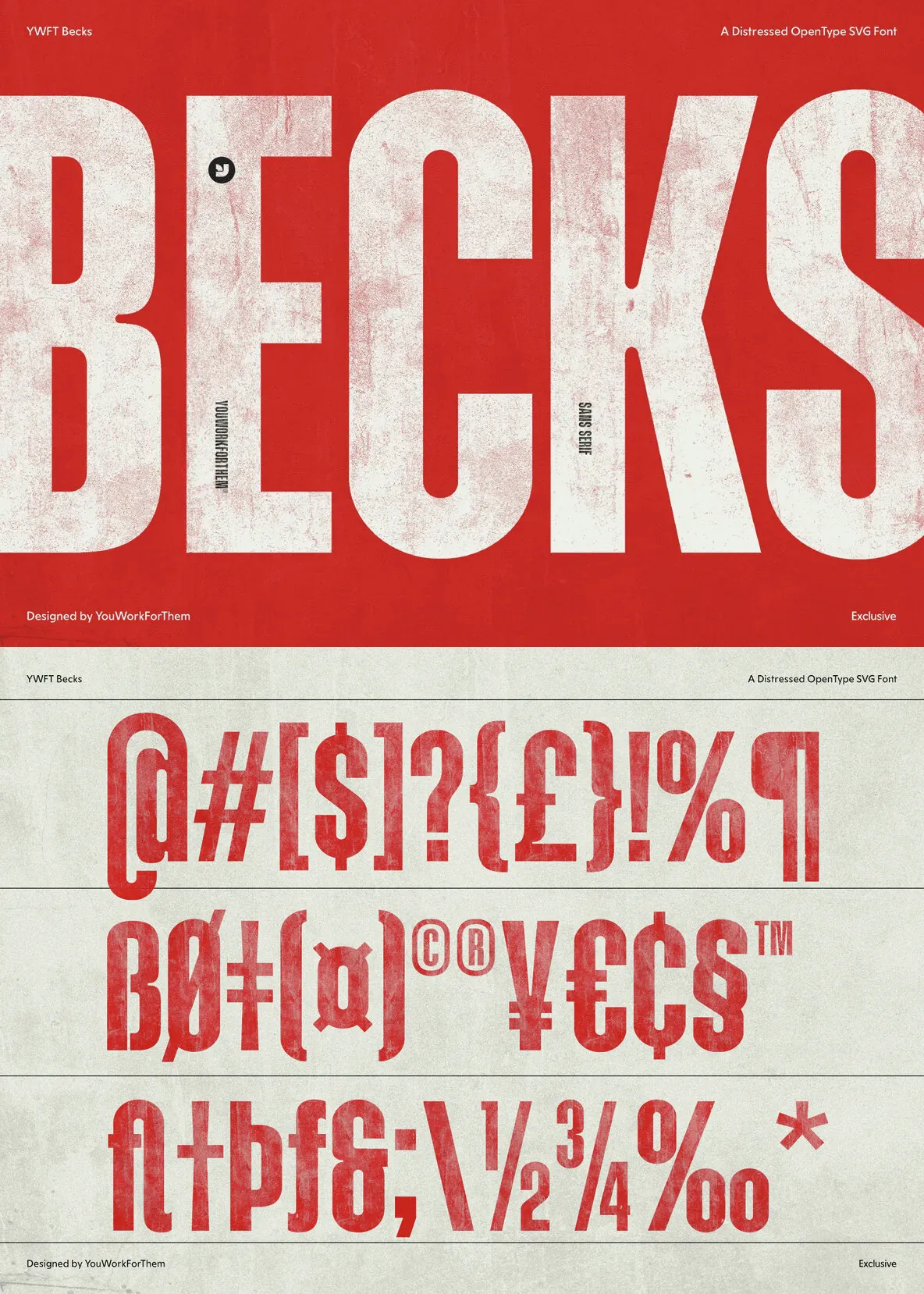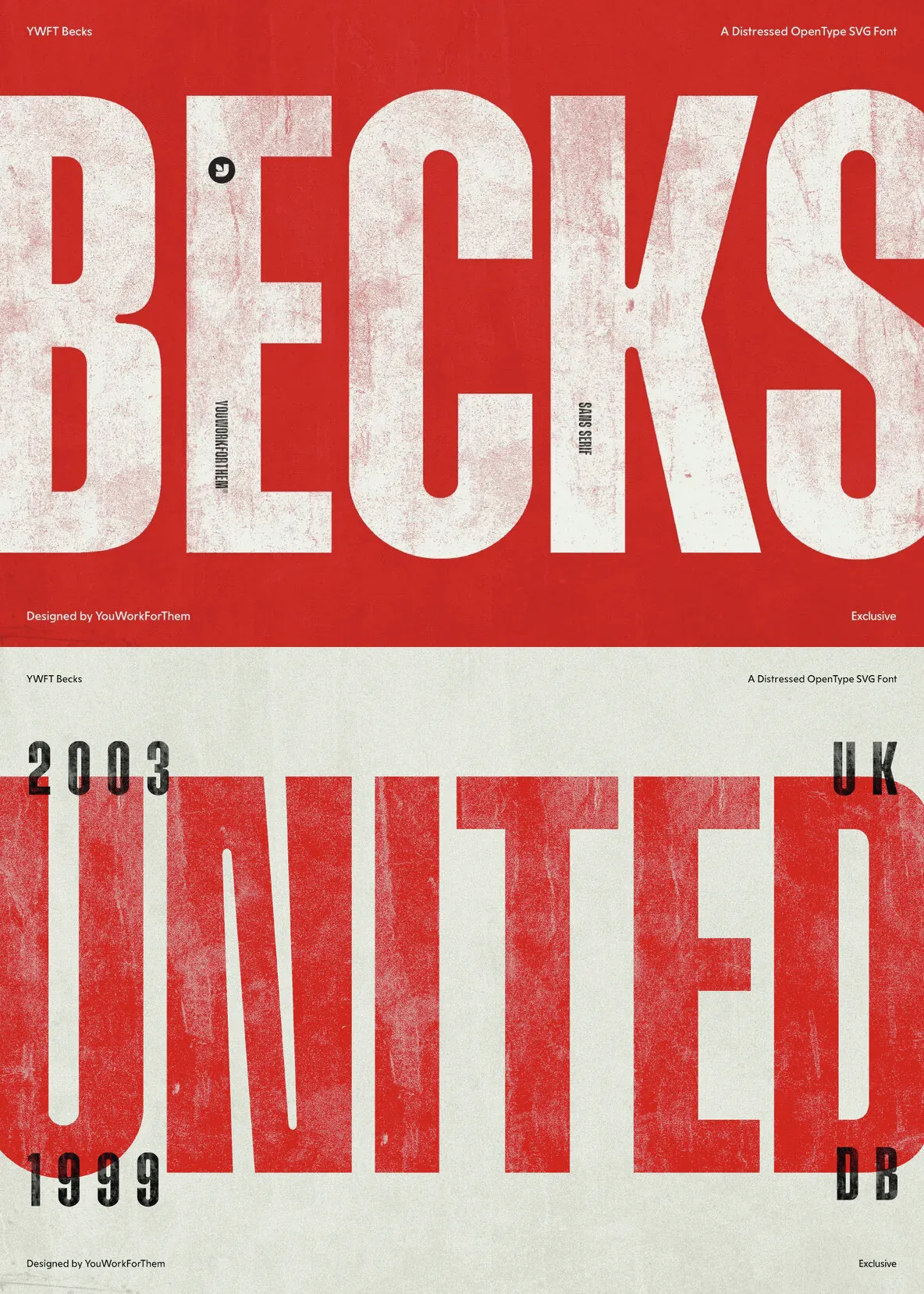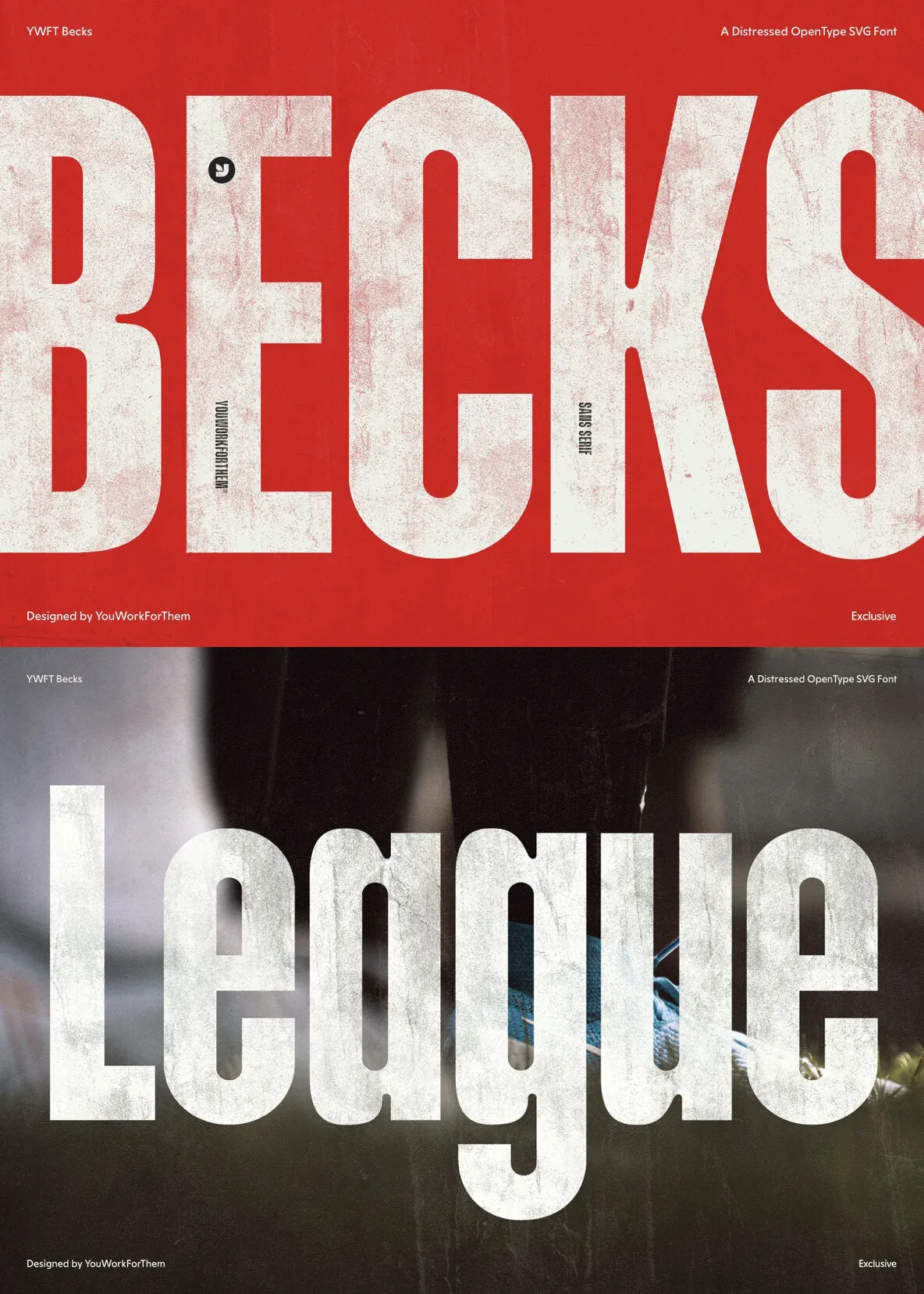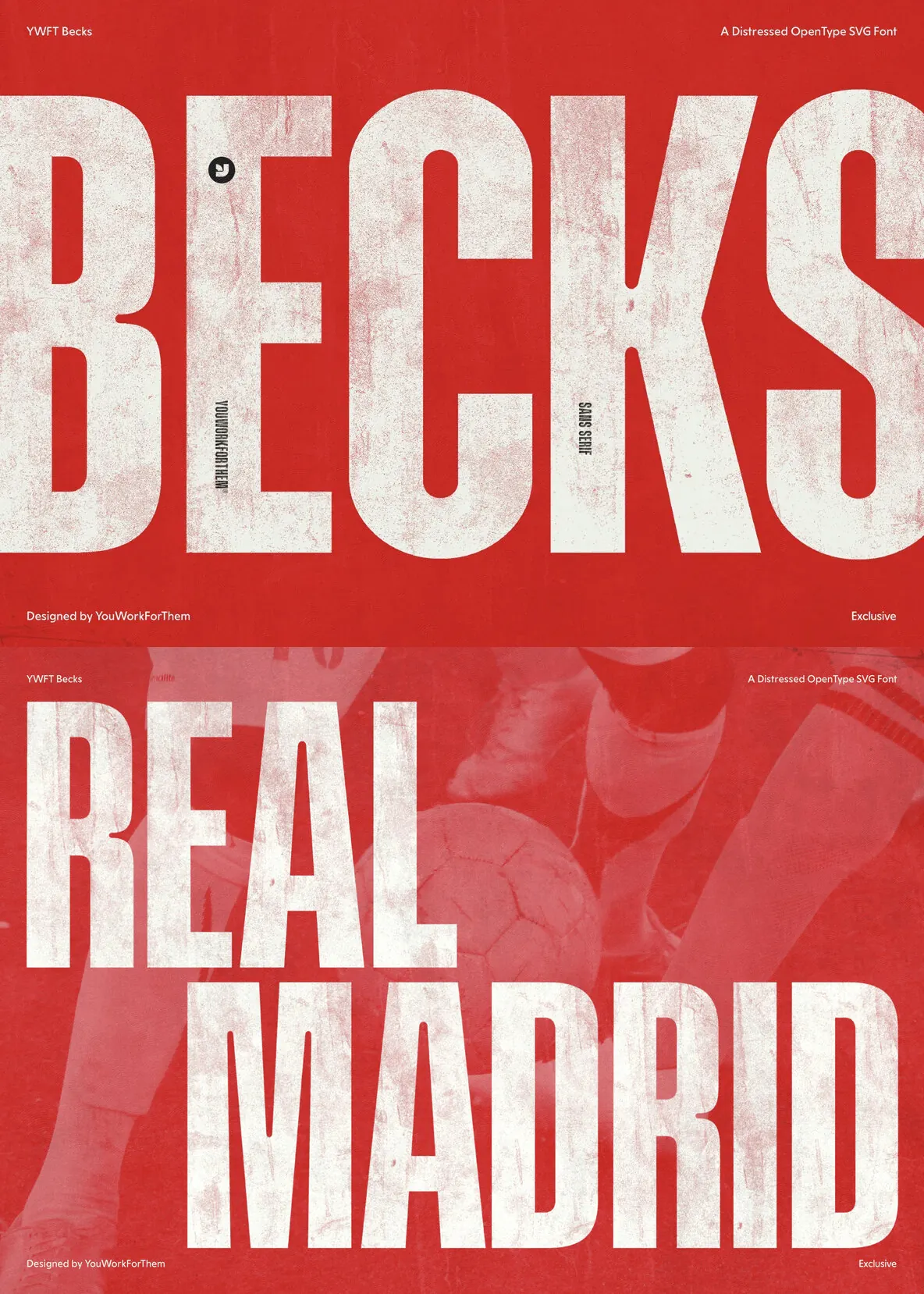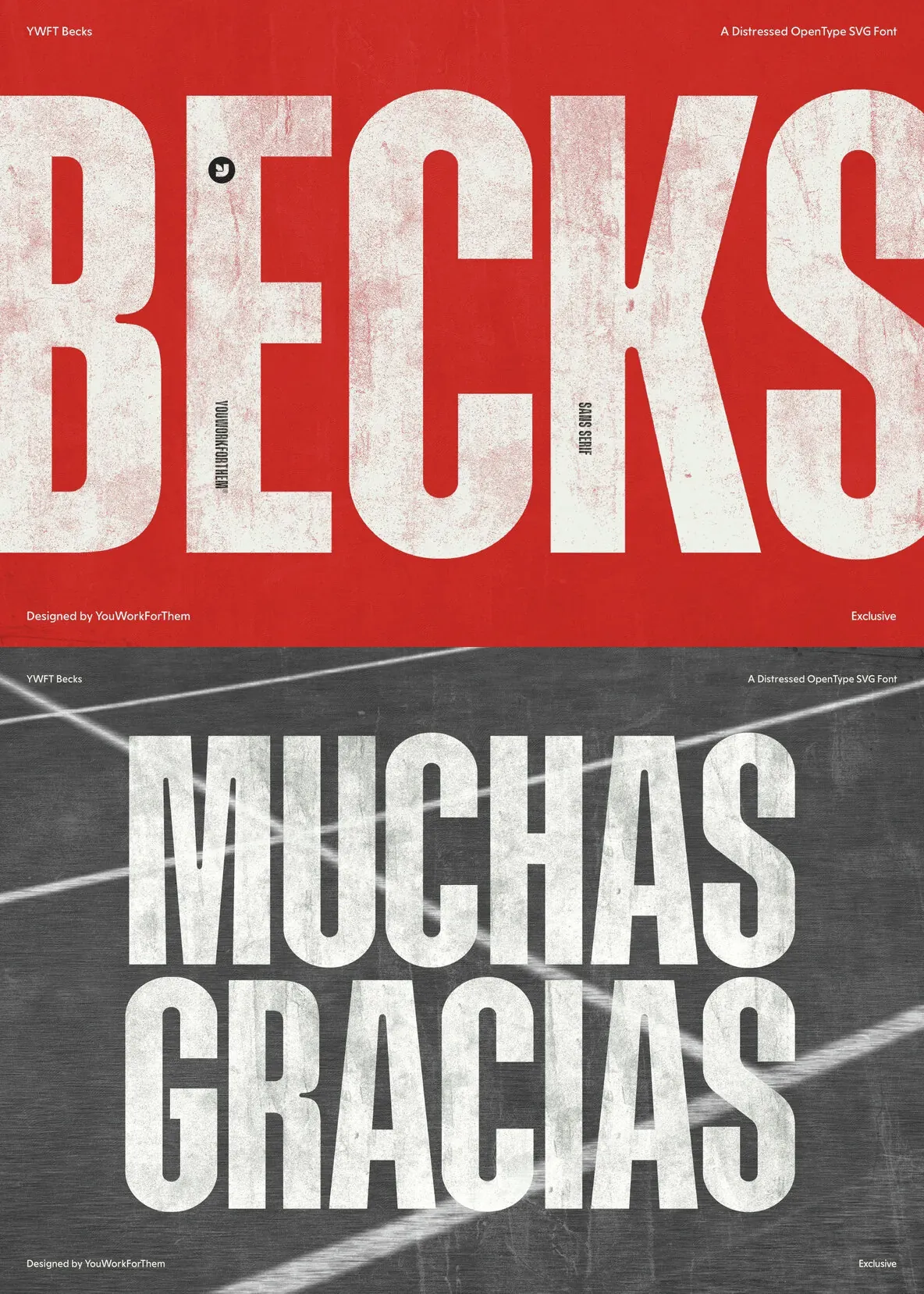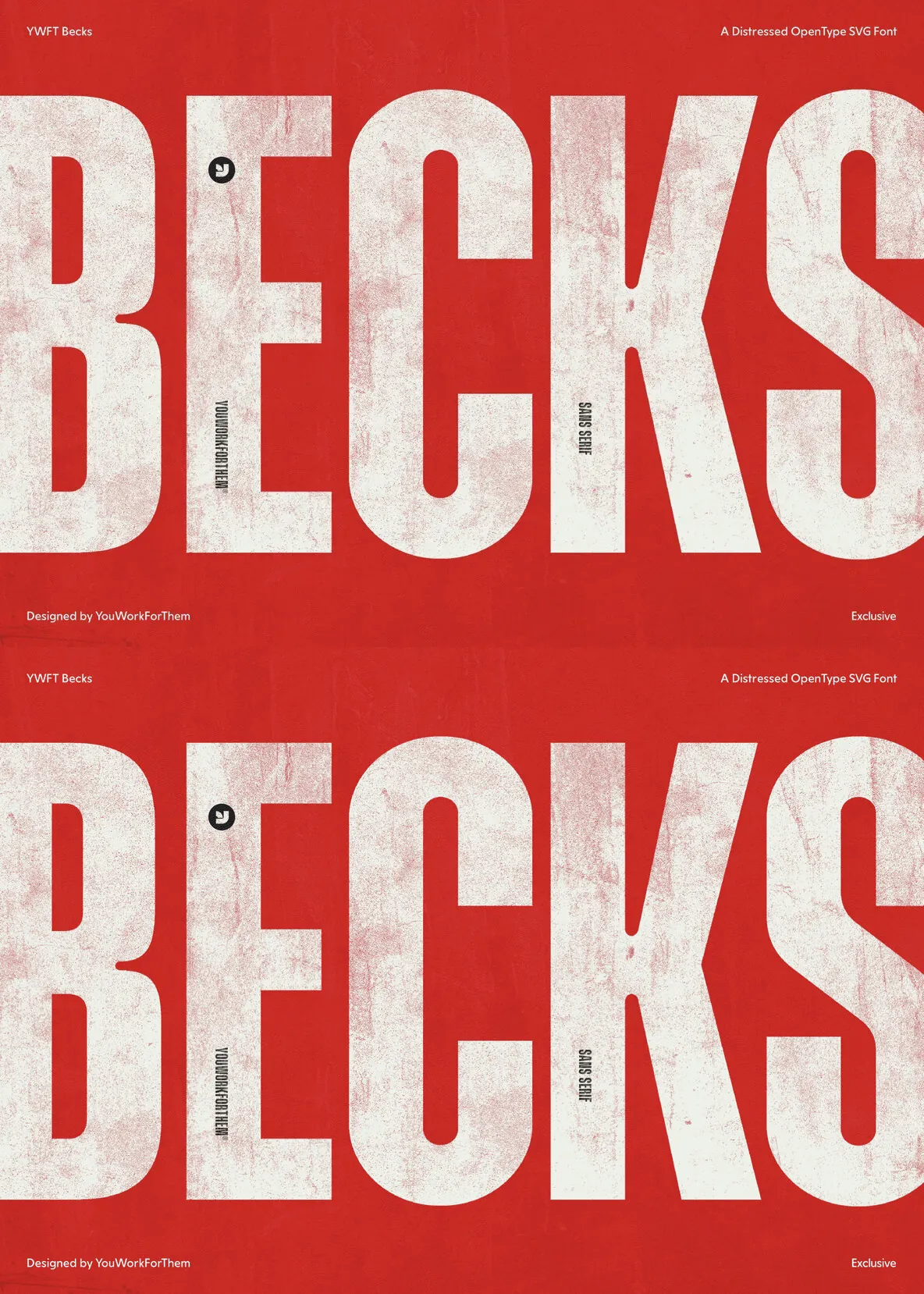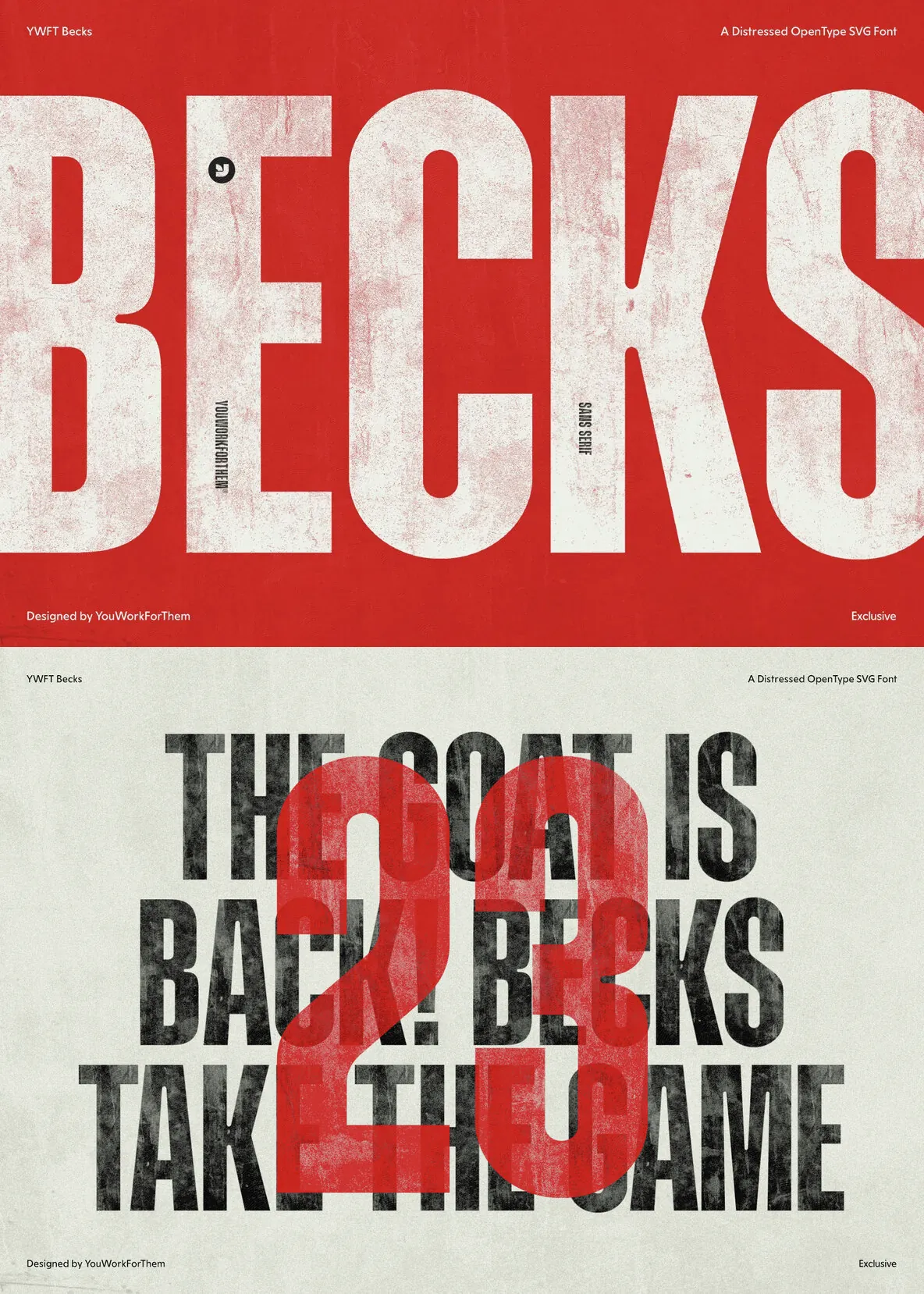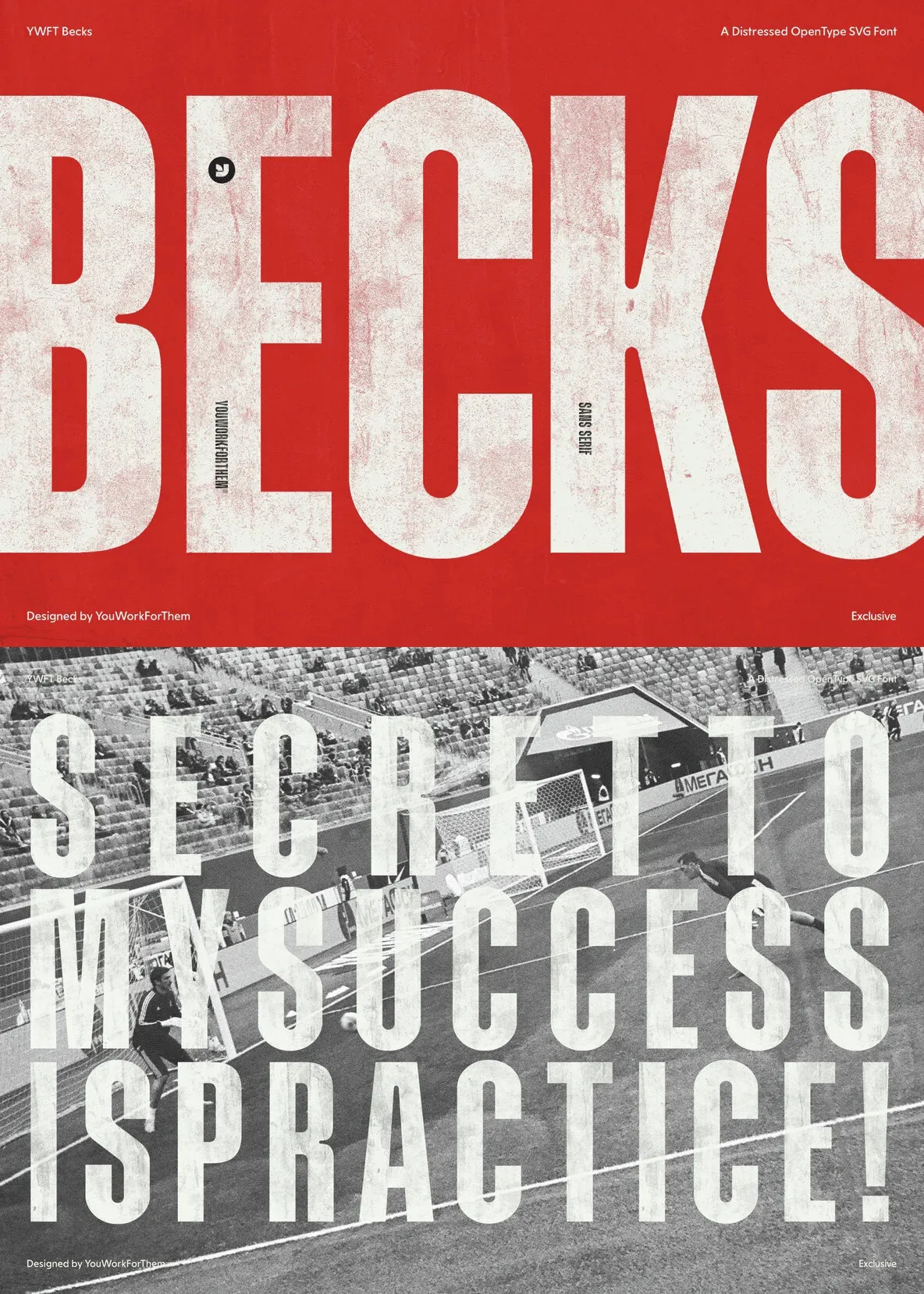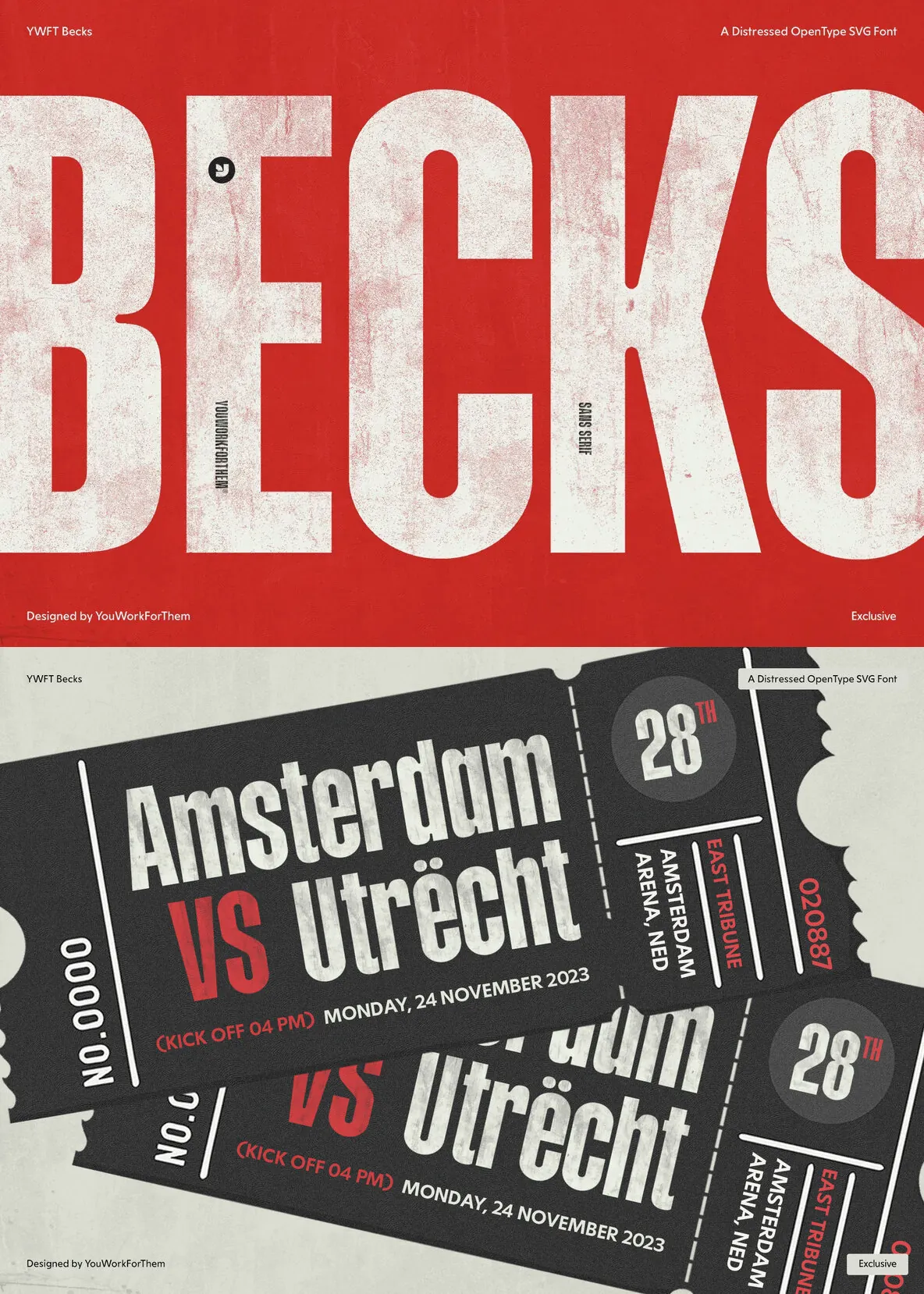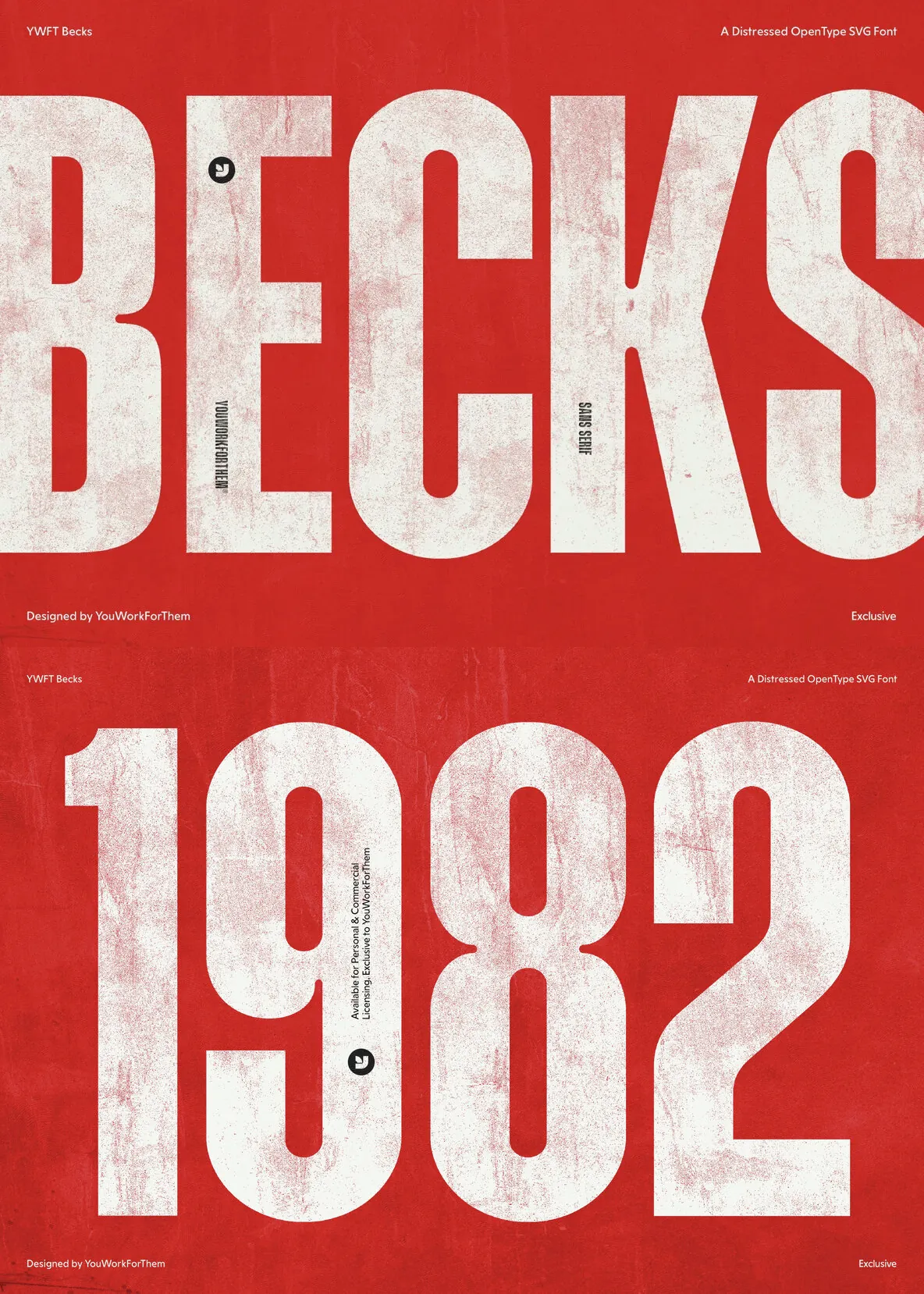
YWFT Becks: The New Leader in Headline SVG Fonts
Immerse yourself in the spirit of English football with YWFT Becks, a distressed sans-serif OpenType SVG font. Engineered to command attention, this font is not merely an aesthetic triumph—it’s the future standard for headline SVG fonts. With its gritty, retro texture and versatile styling options, it is equally at home in sports headlines, social media campaigns, or video content.
Rich Detailing and Versatility
From its meticulously crafted SVG textures to its cleaner, more clean “Regular” option, YWFT Becks offers a broad spectrum of typographic solutions to match any design brief. Its expansive glyph set is unparalleled, making it far more flexible and comprehensive than other options in the market.